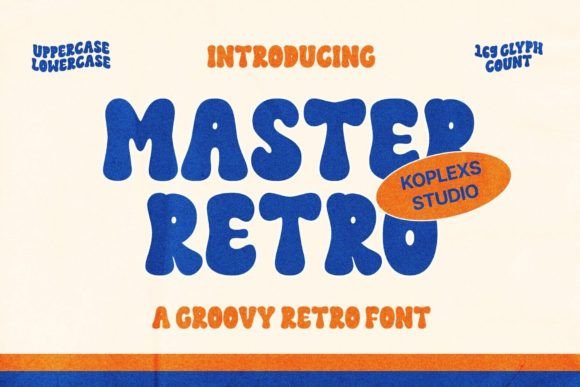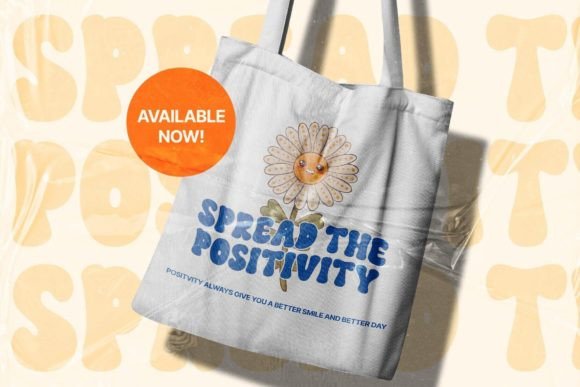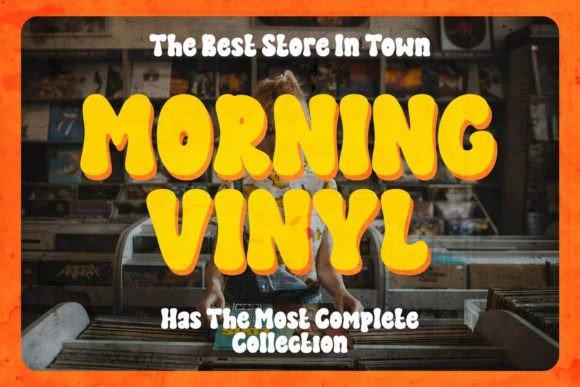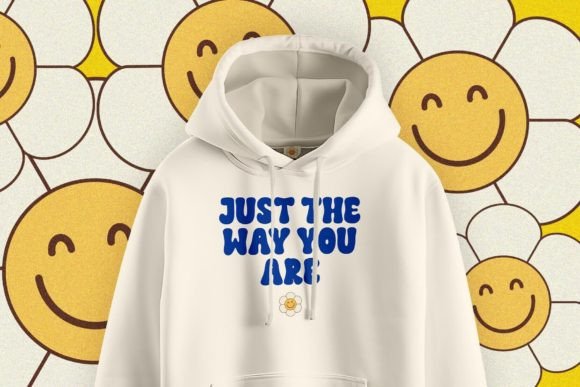
Master Retro Font
About the Master Retro Font
Get ready to be inspired by Master Retro Font, a fresh and dynamic typeface for modern creators. Master Retro Font – Groovy Retro Font is a vibrant and nostalgic font that will transport you to the cheerful and carefree atmosphere of the 70s. This font embodies the essence of retro design with its bold and playful letterforms, reminiscent of disco parties and funky vibes. With its unique and eye-catching style.
Master Retro Font’s bold, playful forms are ideally suited for headlines, posters, and short branding elements where its 70s-inspired energy can make a strong visual statement. It excels in packaging design for products aiming for a retro or vintage aesthetic. However, its condensed letterforms and playful curves make it less suitable for body text or extended reading. Avoid using it in user interfaces (UI) or situations requiring high legibility in smaller sizes.
Pairing Master Retro Font effectively requires considering its inherent boldness. A clean, neutral sans-serif like Open Sans or a geometric sans-serif such as Futura would provide a strong contrast and enhance readability when used for supporting text. For a more playful approach, consider pairing it with a rounded script font for a cohesive yet varied look.
The font’s overall personality is undeniably fun and vibrant, projecting a sense of nostalgia and playful optimism. It’s a strong choice for brands targeting a younger demographic or those seeking a retro-inspired image that evokes feelings of carefree energy and fun.
Master Retro Font Usage Examples
Master Retro Font Example